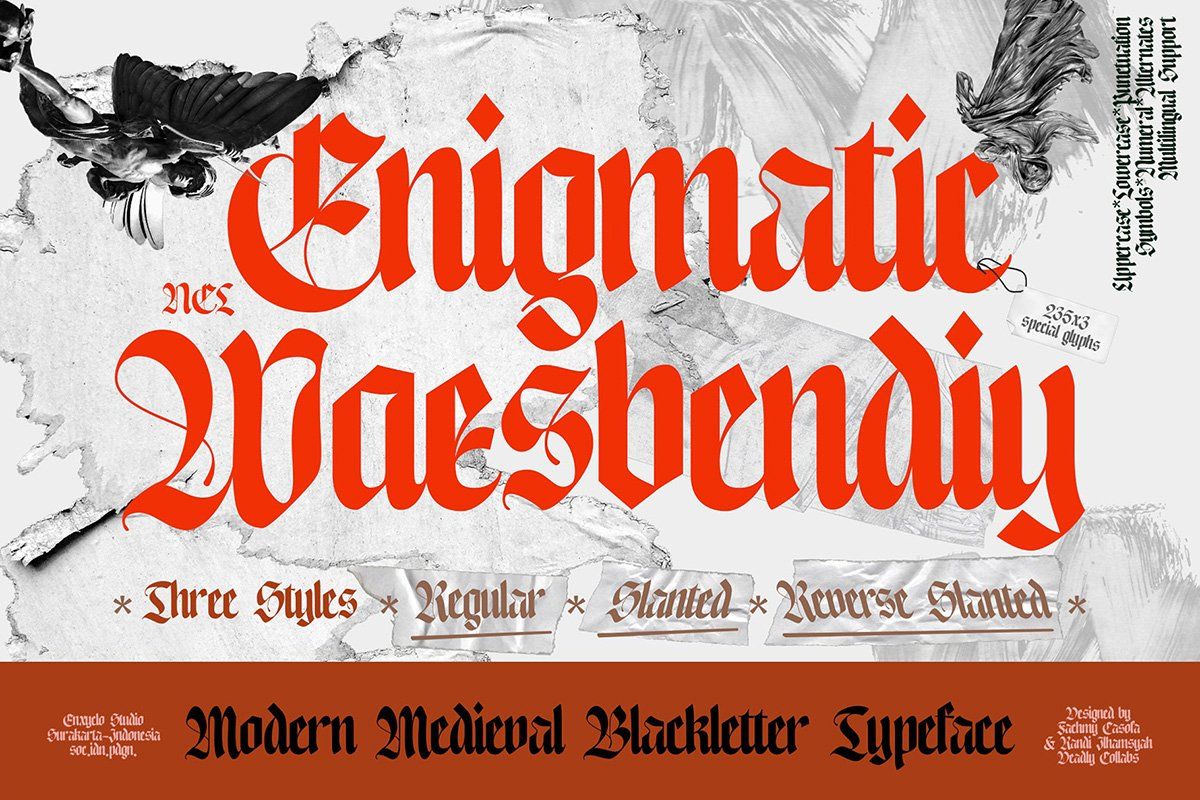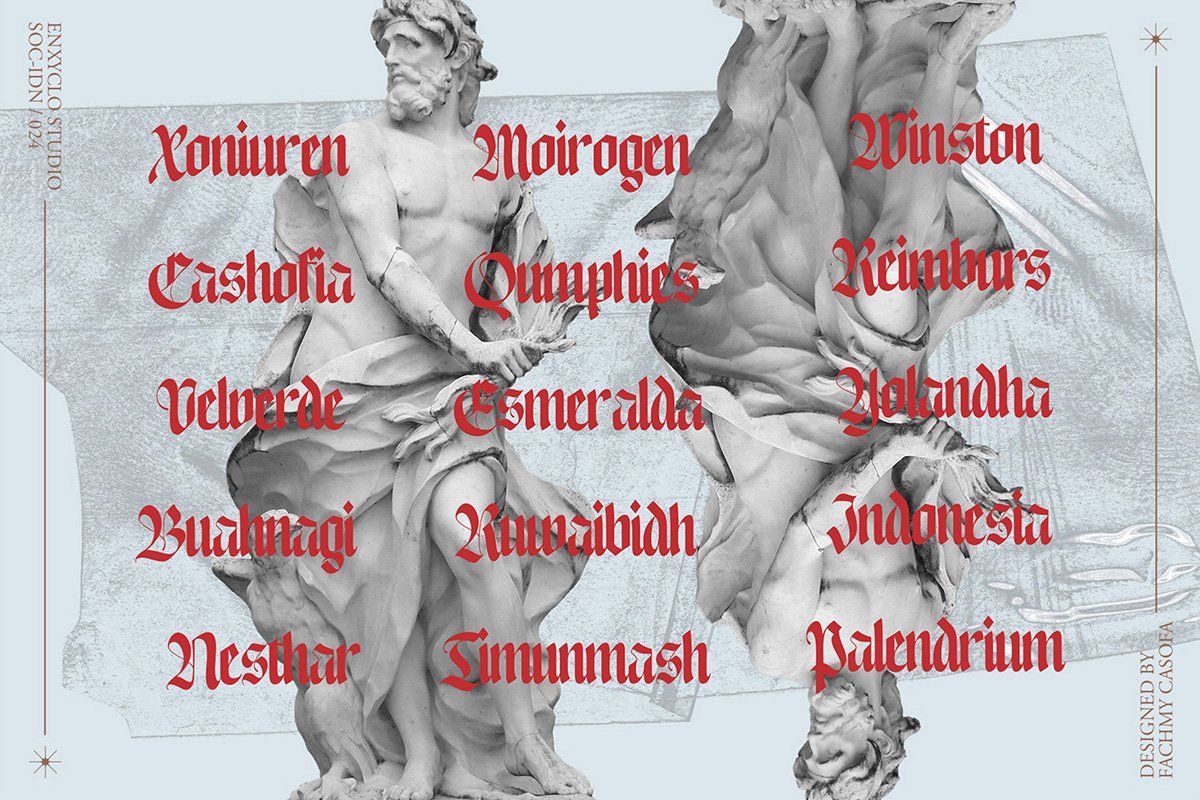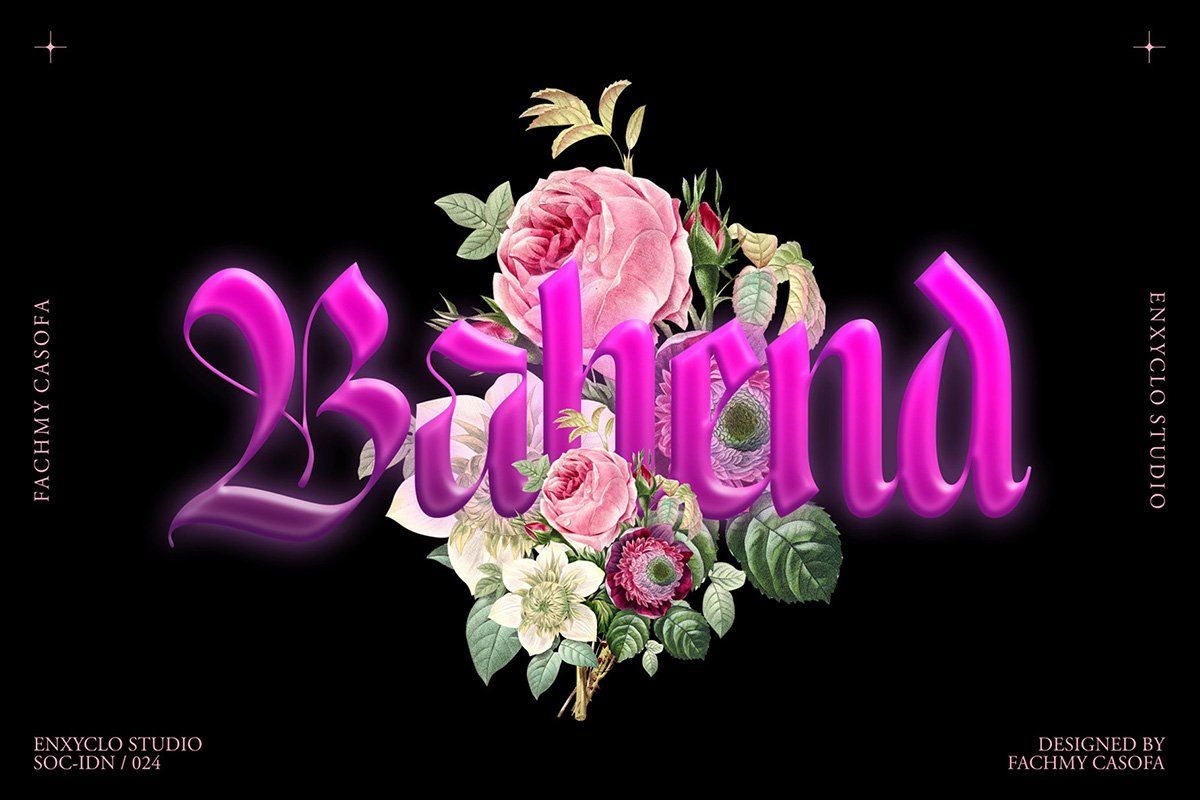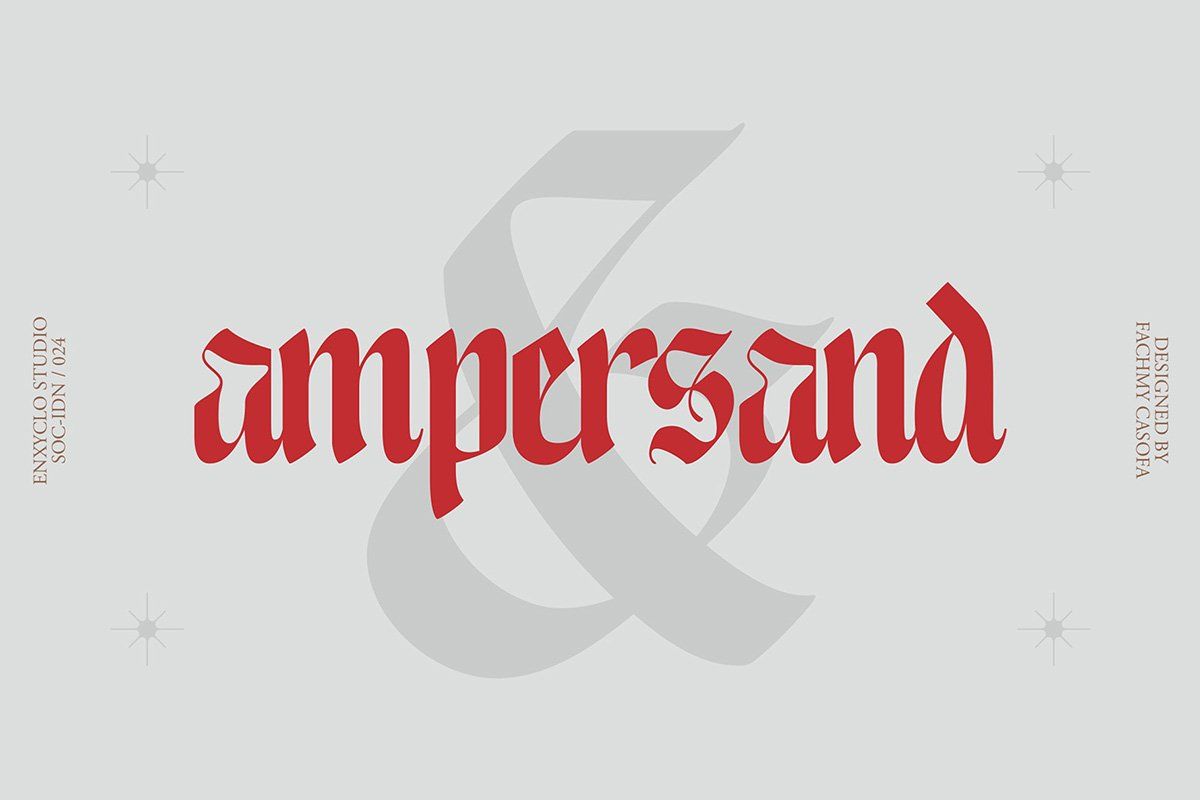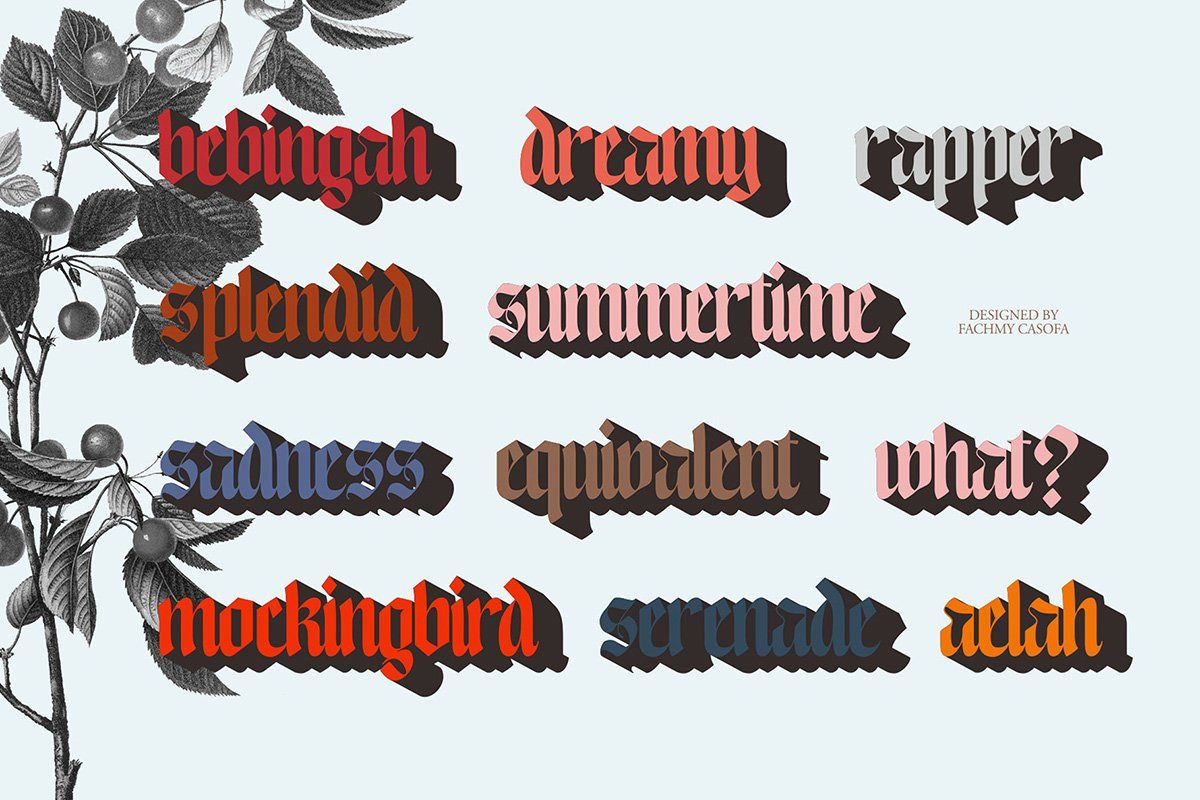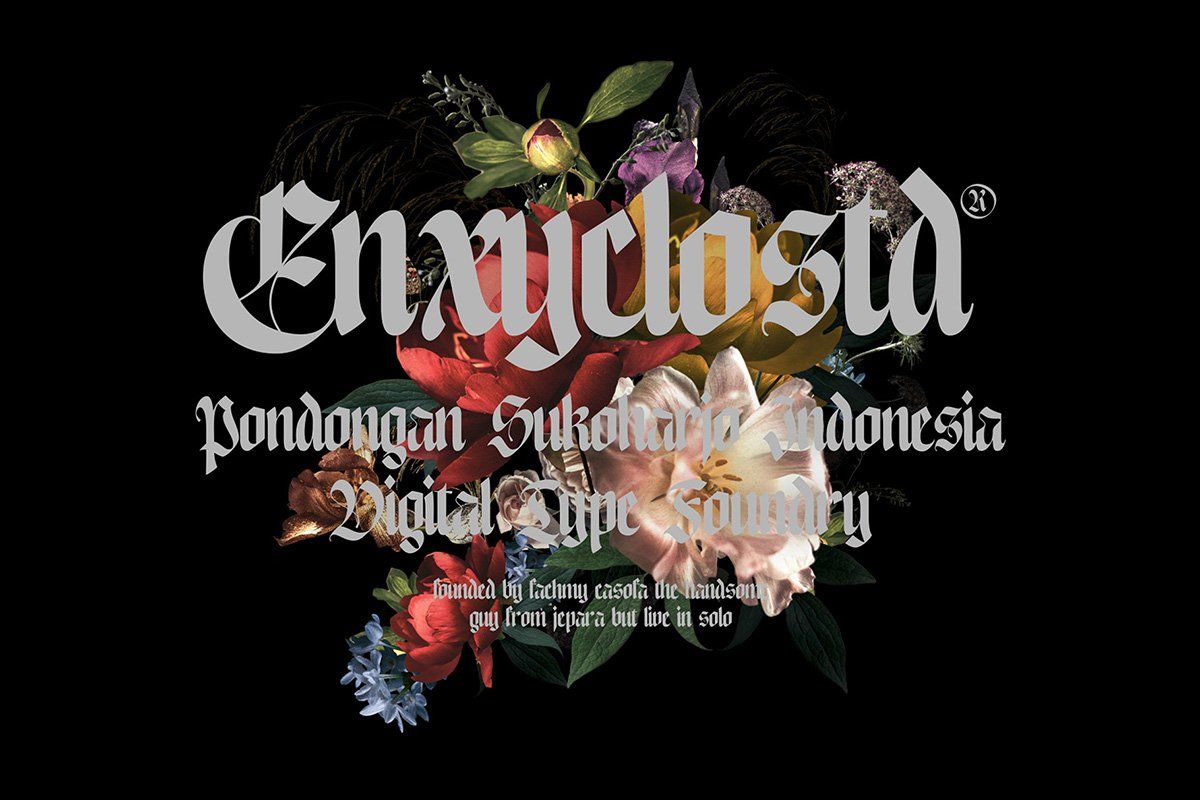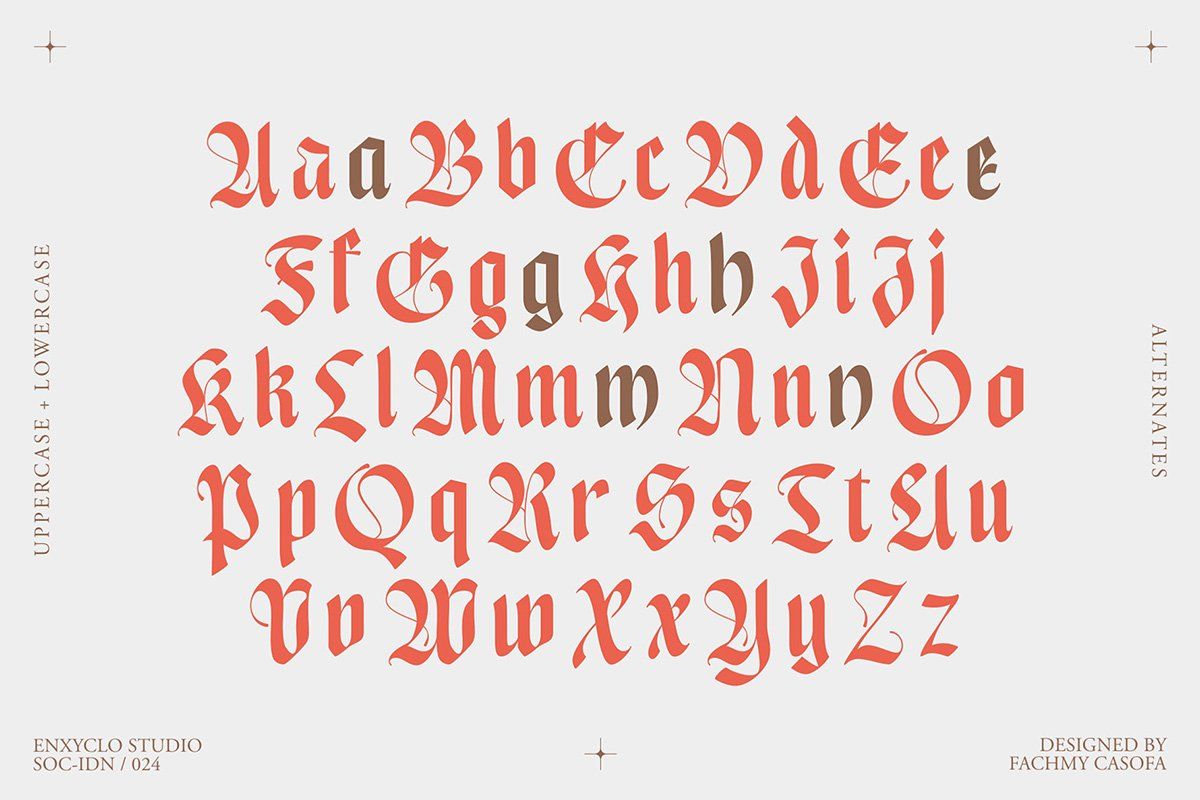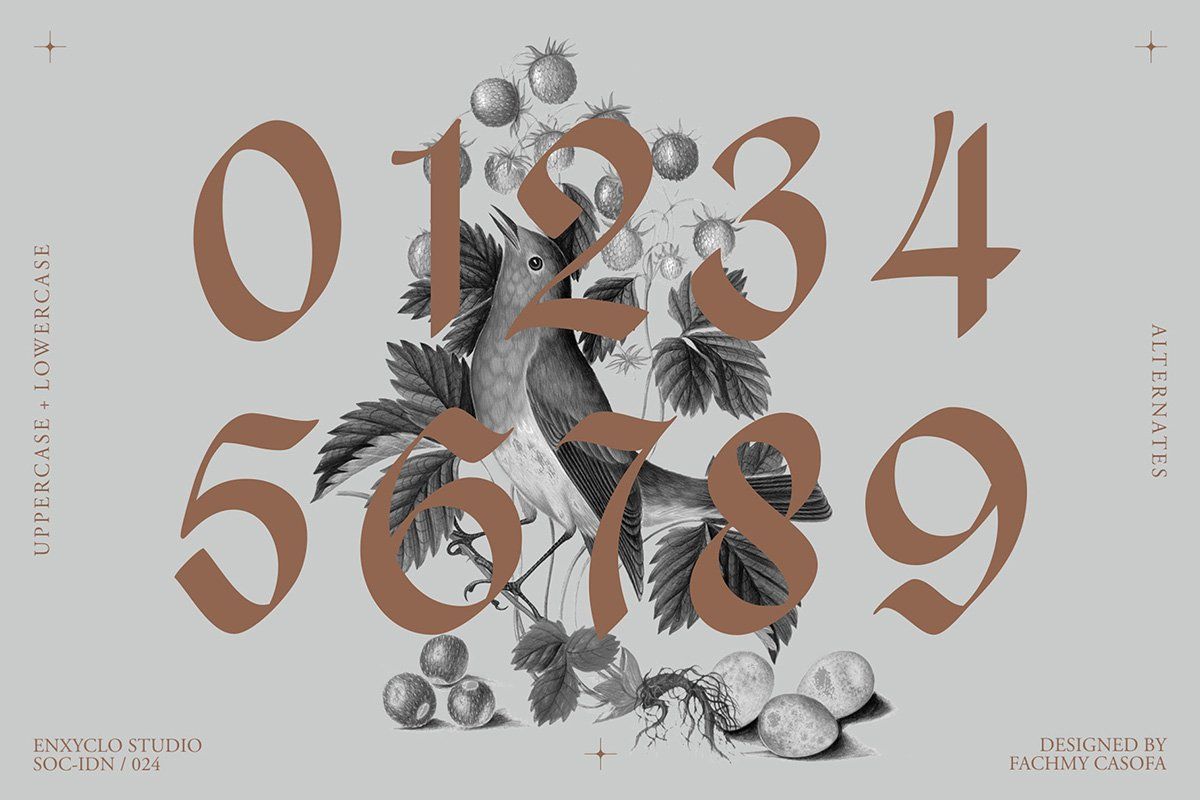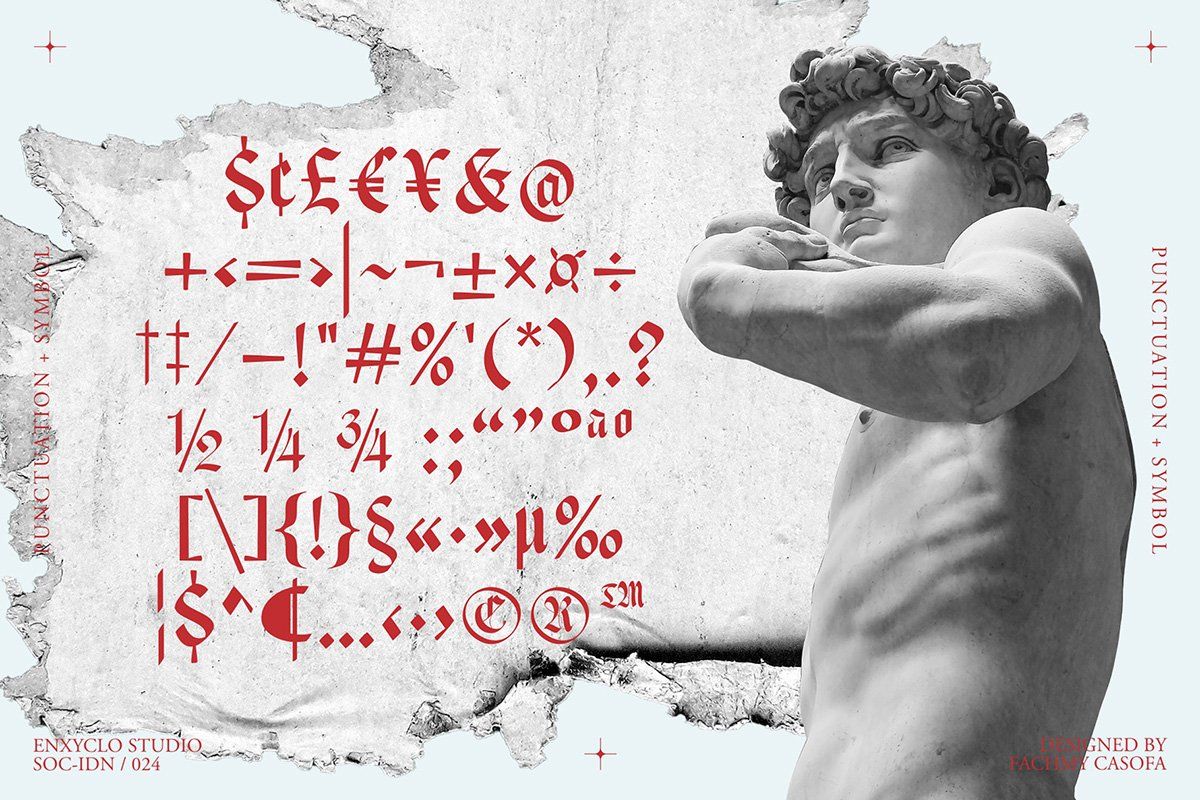
NCL ENIGMATIC WAESBENDIY is a modern timeless blackletter font inspired by the powerful spirit of medieval lettering and reimagined with a bold contemporary edge. Rooted in the aesthetics of the Middle Ages, this typeface combines traditional blackletter structures with modern design sensibilities, resulting in a font that feels historic, brutal, and strikingly relevant for today’s visual culture. Its sharp strokes, rough textures, and scratchy ornamental details create a dark and aggressive atmosphere reminiscent of black metal, death metal, heavy metal, and underground music scenes. The letterforms evoke a sense of chaos and infernal energy, channeling the visual language of thrash metal, hardcore, metalcore, satanic art, tribal symbolism, and hellish medieval imagery. Every character carries a raw and expressive personality designed to dominate the page with fearless intensity.
Despite its brutal character, NCL ENIGMATIC WAESBENDIY maintains a refined modern-classic balance, making it highly versatile for both medieval-inspired projects and contemporary creative designs. Whether used for album covers, tattoo artwork, aggressive logos, underground posters, or dark branding concepts, this font instantly creates a commanding and unforgettable visual presence. Designed for creators who embrace darkness, rebellion, and extreme aesthetics, NCL ENIGMATIC WAESBENDIY transforms typography into a powerful statement of identity—where medieval tradition collides with modern brutality in one infernal blackletter experience.
FEATURE
- 235 Glyphs for Each Style
- Three Styles: Regular, Slanted, Reverse Slanted
- Uppercase & Lowercase
- Numeral, Punctuation & Symbols
- Alternates
- Multilingual Support
PERFECT FOR
- Black Metal & Death Metal Band Logos
- Album Cover Design
- Tattoo Artwork & Lettering
- Hardcore & Thrash Metal Posters
- Underground Music Branding
- Medieval & Dark Fantasy Projects
- Aggressive Streetwear Graphics
- Gothic Editorial Design
- Extreme Event Flyers
- Dark Visual Identity Systems